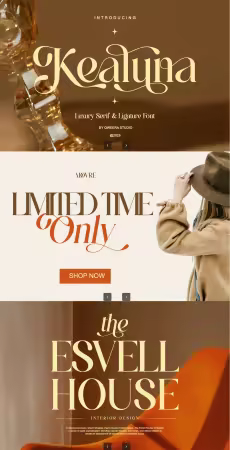
EE - Kealuna - Refined Serif Ligatures Branding Font EYFVFHC
Kealuna is a Refined serif font designed with elegant ligatures and smooth, flowing letterforms. Its refined character shapes create a sophisticated and premium feel, perfect for high-end branding and editorial design.
Crafted for designers who seek elegance and detail, Kealuna delivers timeless beauty with a modern sensibility.
Features
Regular & Italic
Uppercase & lowercase
Elegant alternates & ligatures
Perfect For Refined branding, editorial layouts, fashion logos, beauty brands, packaging, wedding design, magazines, and premium print projects.